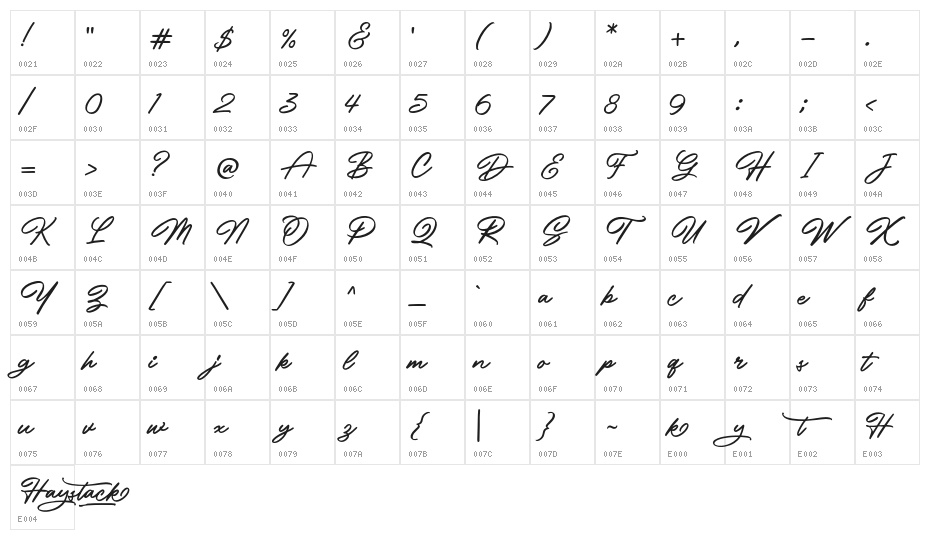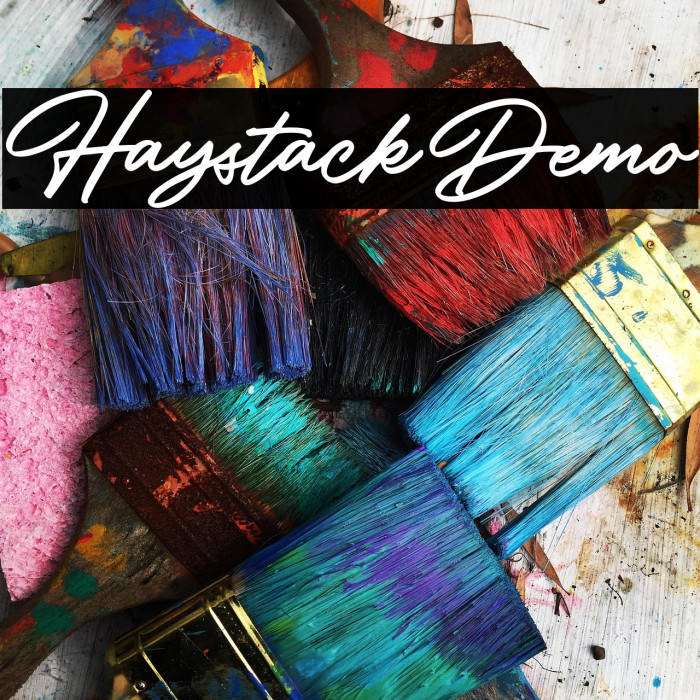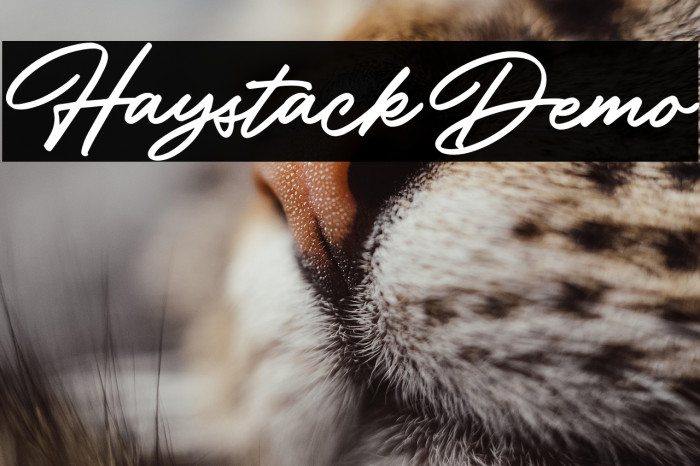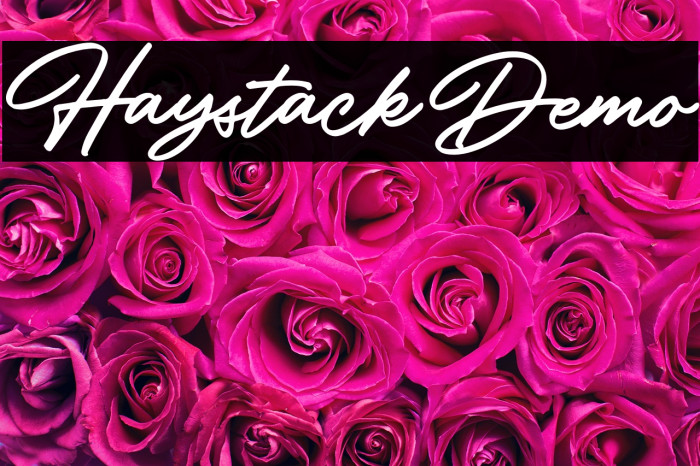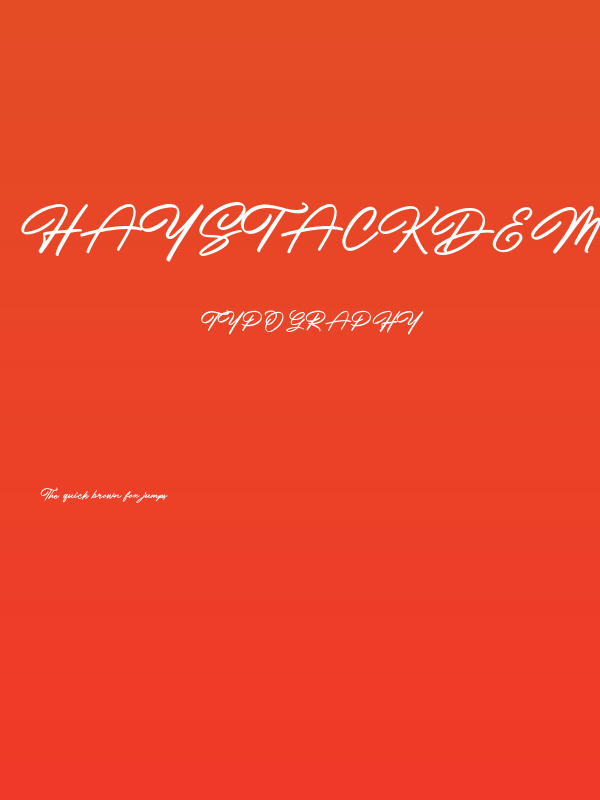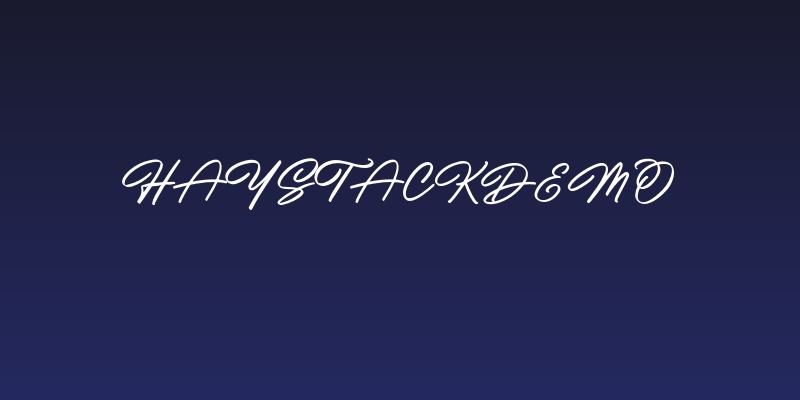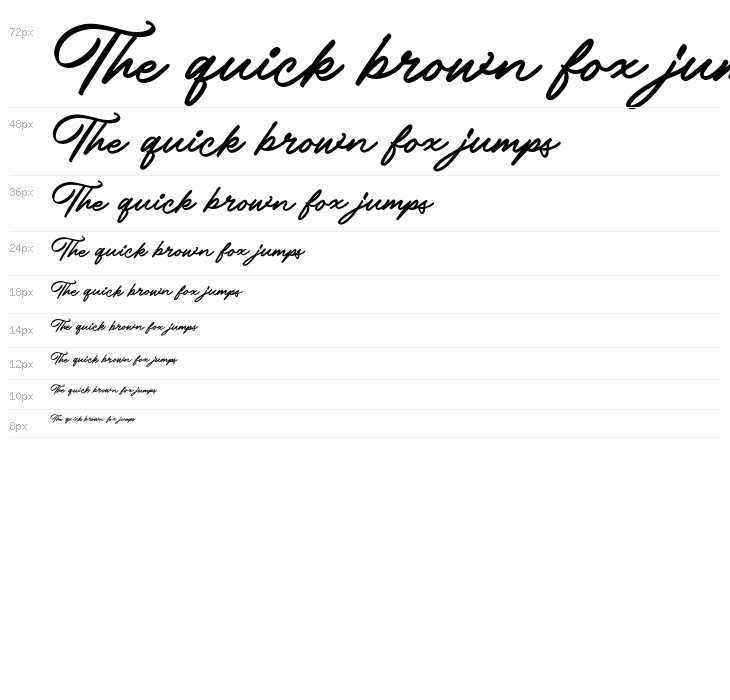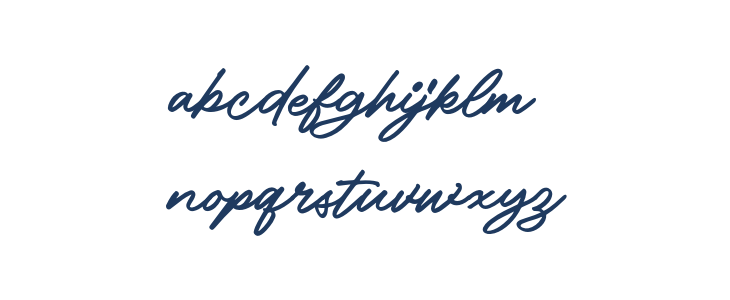
HaystackDemo Font
HaystackDemo Description
This elegant script font features a flowing, cursive style with smooth, connected strokes that emulate the fluidity of handwriting. The uppercase letters are ornate and slightly larger, adding a touch of sophistication, while the lowercase letters maintain a consistent flow, enhancing readability. The numerals are crafted with the same cursive flair, ensuring a cohesive look across all characters. Special characters are designed to match the overall aesthetic, making this font versatile for various uses. Its balanced design offers a harmonious blend of style and legibility.
| Overall Style | Elegant |
| Use Case | Logos, Invitations, Greeting Cards |
| Proposed Projects | Ideal for wedding invitations, greeting cards, branding, and elegant logos. |